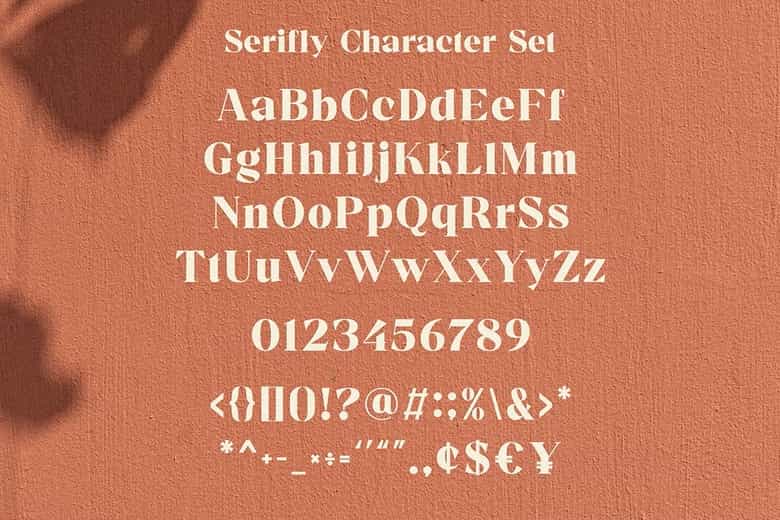
Discover Serifly Font, part of the Serif collection—a versatile and unique font perfect for adding a personal touch to your projects. Download it for free and enjoy crafting designs with style, from invitations to social media posts. This font is available exclusively for personal use, giving you the freedom to create without limits. Unlock your creativity with Serifly Font today!
Called Serifly, this assuredly stylish, elegantly crafted serif font proves itself adaptable to numerous applications, including branding initiatives, logos, social media content, adverts, labeling, product packaging, photography, wedding design work, invitations, stationery, and a multitude of other undertakings.